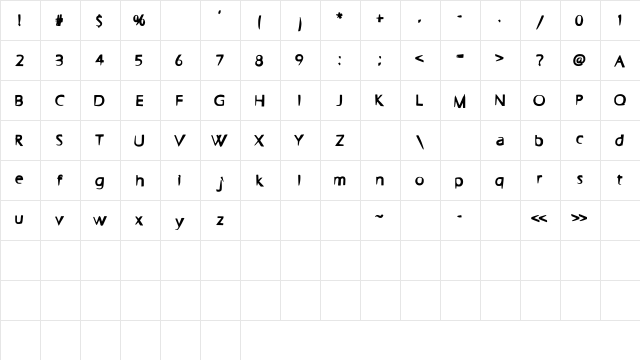
Faster Medium Font Preview
Faster Medium
Design Context for Faster Typeface
Faster is a composed and adaptable typeface that performs quietly and consistently across a wide range of design contexts.